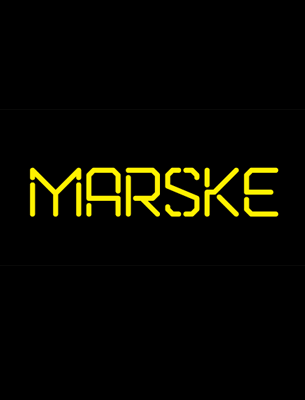
• Saira Stencil One is the new stencil version of the popular Saira sans serif font.
Saira Stencil One
Saira Stencil One is the new stencil version of the popular Saira sans serif font.
• Botera is a elegant font that comes with serif and stencil style.
Botera
Botera is a elegant font that comes with serif and stencil style.
• Pikolo is a kind of display font that will make you look twice.
Pikolo Block Alt
Pikolo is a kind of display font that will make you look twice.
• Regattia is a didone style display font that comes with regular and stencil styles.
Regattia
Regattia is a didone style display font that comes with regular and stencil styles.
• Georgina is a clean, stencil style font with a retro touch.
Georgina
Georgina is a clean, stencil style font with a retro touch.
• Roska is a free-to-download stencil font with round edges.
Roska Stencil
Roska is a free-to-download stencil font with round edges.
• Promplate is a bold, in-your-face stencil font that is free to download. I like the way the designer combines the lowercases and uppercases together.
Promplate
Promplate is a bold, in-your-face stencil font that is free to download. I like the way the designer combines the lowercases and uppercases together.
• Portico is a uppercase-only free fonts that comes with huge variations of styles, front thin to thick and clean to grungy, a total of whopping 27 styles.
Portico
Portico is a uppercase-only free fonts that comes with huge variations of styles, front thin to thick and clean to grungy, a total of whopping 27 styles.
• Butler is a free serif typeface that comes with a big family. It was inspired by a mix between the Bodoni and Dala Floda family.
Butler
Butler is a free serif typeface that comes with a big family. It was inspired by a mix between the Bodoni and Dala Floda family.
• September is a free font that the design was based on old school knuckles tattoos. It has the Bodoni-style feature with added lines and also having the stencil-like characteristics to it.
September
September is a free font that the design was based on old school knuckles tattoos. It has the Bodoni-style feature with added lines and also having the stencil-like characteristics to it.
• Zefani is a font family that consists of four styles: 3 sans serifs with different weight and one stencil style which is free to download for personal use.
Zefani Stencil
Zefani is a font family that consists of four styles: 3 sans serifs with different weight and one stencil style which is free to download for personal use.
Author: Kash Singh and Sergiy Tkachenko
Marske